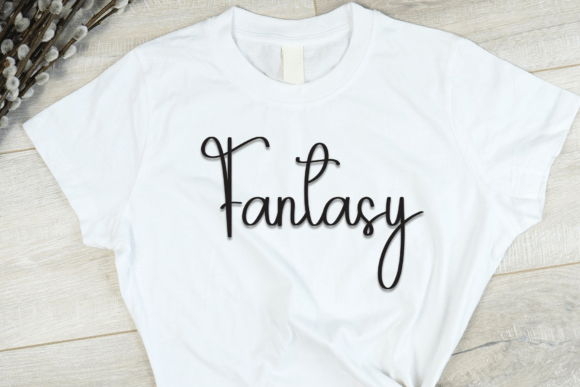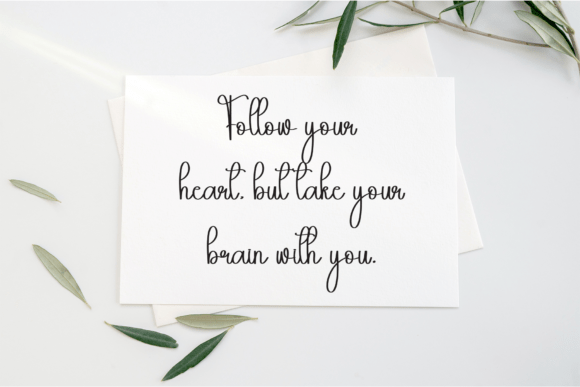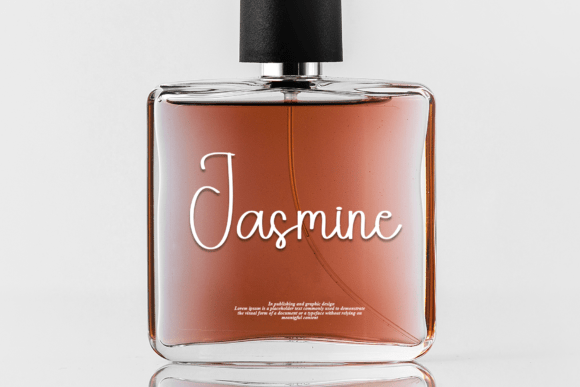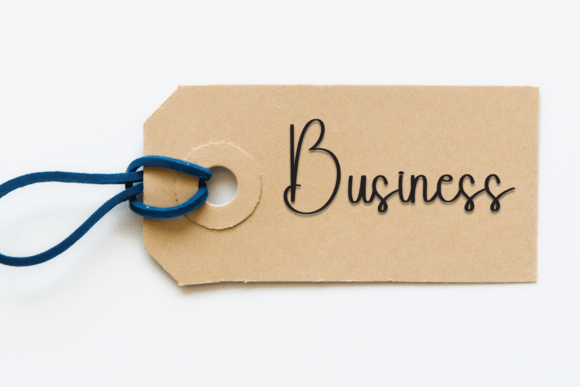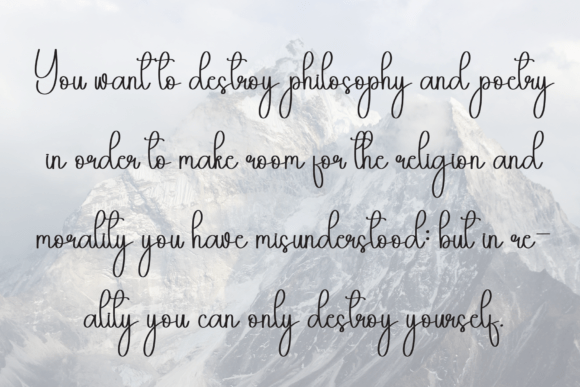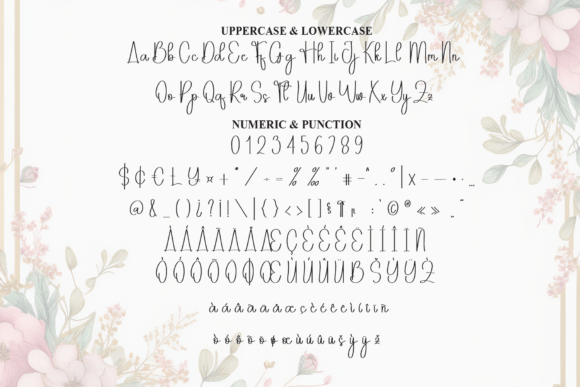
Introducing Greating Font: Elevate Your Designs with Artistic Flair and Contemporary Elegance
In the world of typography, few fonts manage to strike a balance between artistic expression and modern sophistication. Greating Font is one such exceptional typeface that embodies the perfect blend of fluid brush strokes, dynamic curves, and expressive letterforms. This stylish script font is designed to bring a touch of hand-painted calligraphy to your designs, but with a contemporary twist that sets it apart from traditional calligraphy fonts.
The Artistic Essence of Greating Font
Greating Font is more than just a typeface; it’s an artistic statement. Its fluid brush strokes give it a natural, hand-painted feel that immediately captures the viewer’s attention. The dynamic curves and expressive letterforms add a level of sophistication and elegance, making it ideal for a wide range of design applications. Whether you’re working on a logo, invitation, packaging, or social media graphics, Greating Font brings a creative and sophisticated touch that elevates your designs to new heights.
One of the standout features of Greating Font is its versatility. Its unique blend of traditional calligraphy and modern design makes it suitable for various design projects. Here are some ways you can use Greating Font to enhance your designs:
- Logos: Create a lasting impression with a logo that exudes elegance and sophistication. Greating Font’s unique letterforms and fluid strokes make it perfect for crafting memorable brand identities.
- Invitations: Add a touch of class to your invitations, whether it’s for a wedding, birthday, or corporate event. The font’s artistic flair and contemporary elegance ensure that your invitations stand out.
- Packaging: Elevate your product packaging with a font that conveys luxury and sophistication. Greating Font can help you create eye-catching packaging that reflects your brand’s personality.
- Social Media Graphics: Make your social media posts stand out with Greating Font’s vibrant character and natural flow. It’s perfect for creating engaging graphics that capture your audience’s attention.
Why Choose Greating Font?
With so many fonts available, why should you choose Greating Font for your design projects? Here are a few compelling reasons:
- Unique Artistic Expression: Greating Font offers a distinctive artistic expression that sets it apart from more traditional fonts. Its hand-painted feel and modern twist make it a standout choice for designers looking for something unique.
- High Versatility: Whether you’re working on a small project or a large-scale design campaign, Greating Font’s versatility ensures that it can adapt to any design requirement.
- Ease of Use: Despite its complex and artistic design, Greating Font is surprisingly easy to use. Its clear and legible letterforms make it suitable for both digital and print designs.
- Visual Impact: Greating Font delivers a significant visual impact, making it perfect for designs that need to capture attention quickly. Its vibrant character and natural flow ensure that your designs leave a lasting impression.
Tips for Using Greating Font Effectively
To get the most out of Greating Font, here are some tips for using it effectively in your designs:
- Pair it with Simple Fonts: For maximum impact, pair Greating Font with simpler fonts to create a balanced design. This contrast will highlight the font’s unique features and prevent the design from feeling overwhelming.
- Experiment with Colors: Greating Font’s natural flow and vibrant character make it suitable for a wide range of colors. Experiment with different color schemes to find the perfect match for your design.
- Use it Sparingly: While Greating Font is incredibly versatile, it’s best used sparingly to maximize its impact. Use it for headings or key messages to draw attention and add a creative touch.
Greating Font is a stylish script font that brings a perfect blend of artistic flair and contemporary elegance to your designs. Its fluid brush strokes, dynamic curves, and expressive letterforms make it an exceptional choice for designers and crafters looking to add a creative and sophisticated touch to their projects. With its versatility, ease of use, and significant visual impact, Greating Font is set to become a favorite in the world of typography. Explore the endless possibilities with Greating Font and elevate your designs to new heights of artistic expression and modern sophistication.